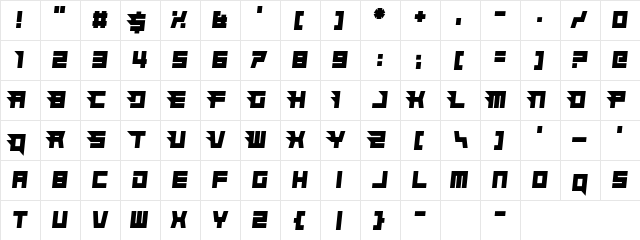
Hindsight 2020 Regular
| Designer | Allison James |
Design Context for Hindsight 2020 Typeface
Hindsight 2020 is a composed and adaptable typeface that performs quietly and consistently across a wide range of design contexts.